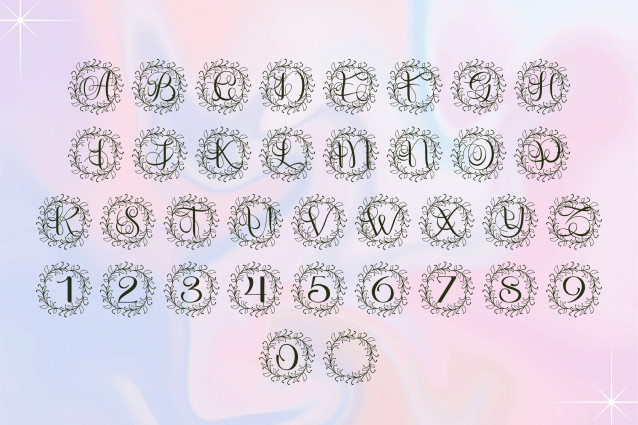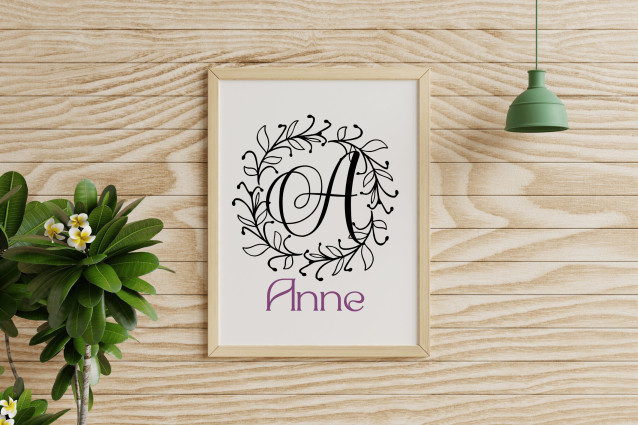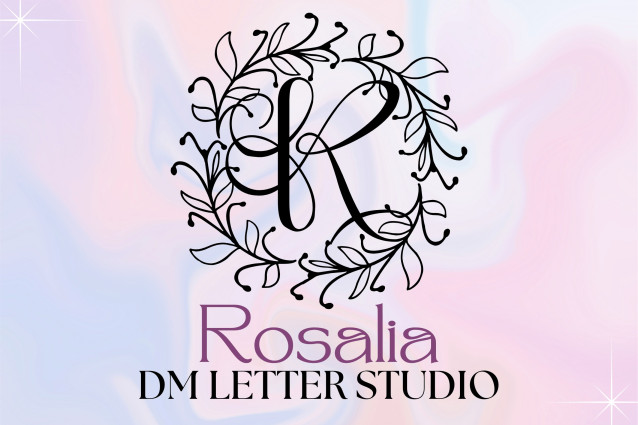
Rosalia Wreath Font
Rosalia Wreath Monogram is a charming serif font where each uppercase letter is beautifully framed by a graceful floral wreath. Designed for lovers of elegance and romance, this monogram font is ideal for wedding invitations, personalized gifts, and feminine branding. The timeless wreath adds a delicate touch of nature-inspired sophistication.